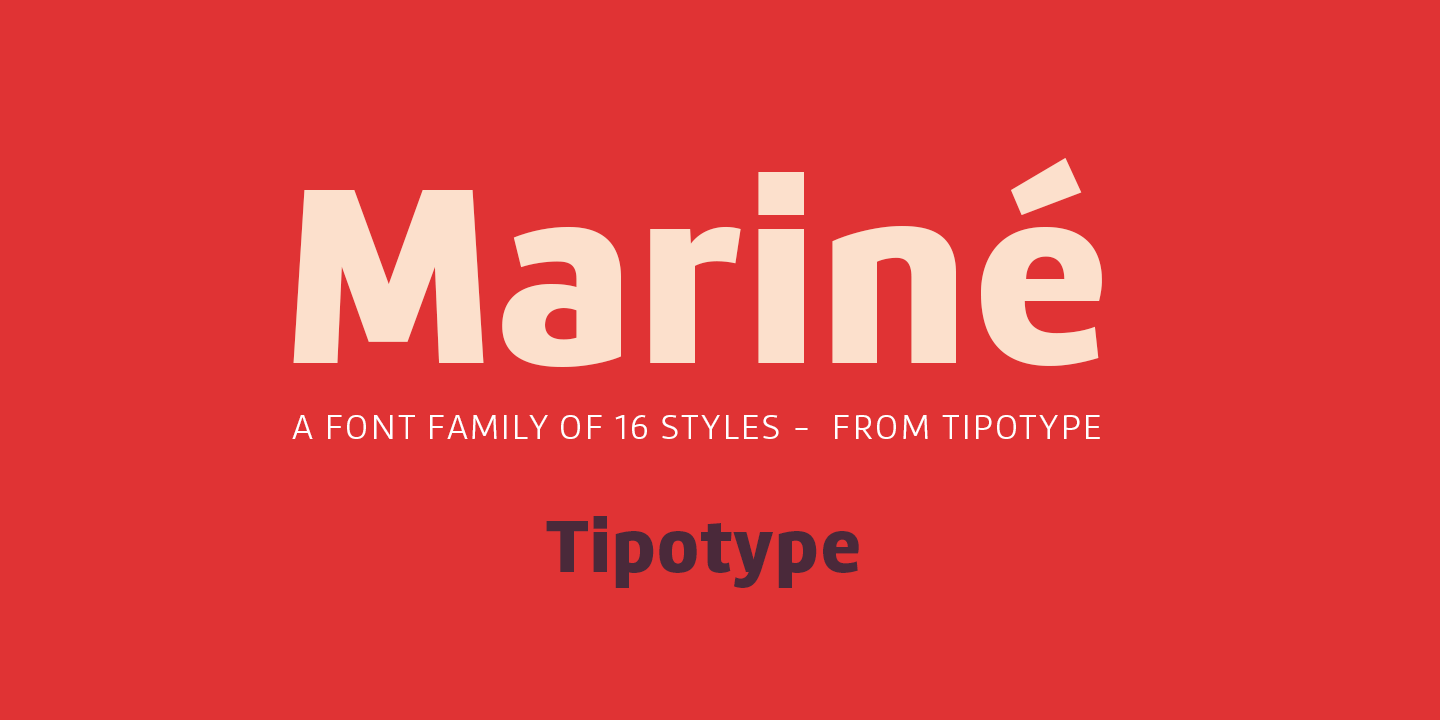
Mariné Font is a clean, geometric sans-serif typeface that perfectly balances modern structure with a friendly, approachable character. It’s ideal for corporate branding, editorial layouts, UX/UI interfaces, infographics, startup presentations, and modern packaging.
What makes Mariné Font Free Download so exciting is its versatility and intelligent design. With humanist touches on a geometric skeleton, Mariné manages to be professional without being cold — a rare combo that brings both clarity and warmth to any visual communication.
The Mariné Font family includes a rich set of styles like Thin, Light, Regular, Medium, Bold, and Black, each paired with corresponding italics. This comprehensive range ensures consistent branding across platforms, whether in print, web, or mobile.
Whether you're building a minimalist website, crafting a polished pitch deck, or designing a clean editorial spread, Mariné Font Free Download gives you the typographic precision you need — with just the right dash of personality to make it memorable.